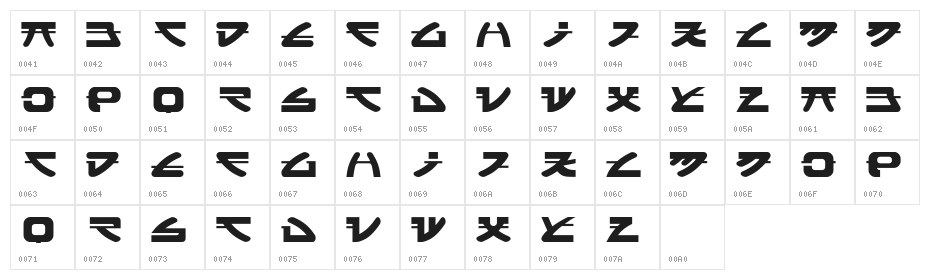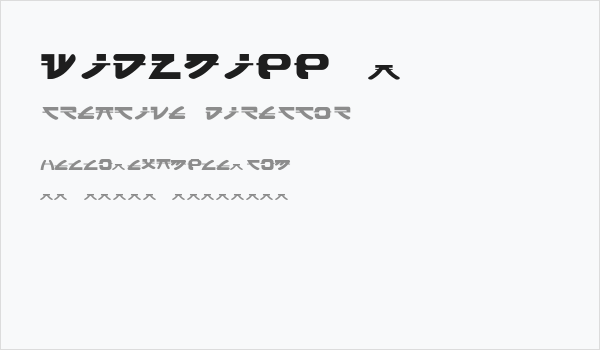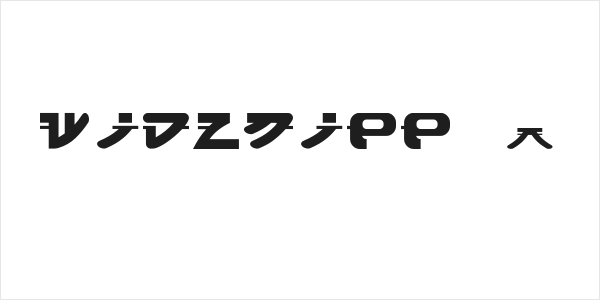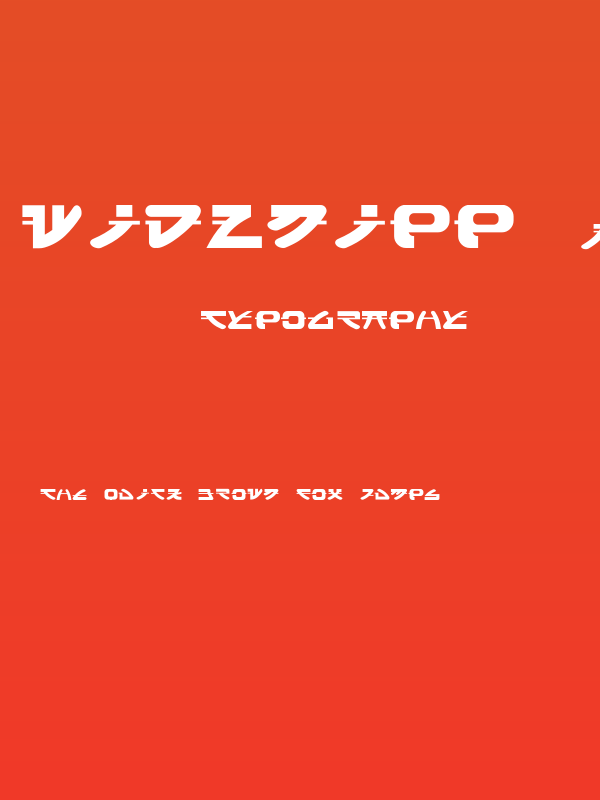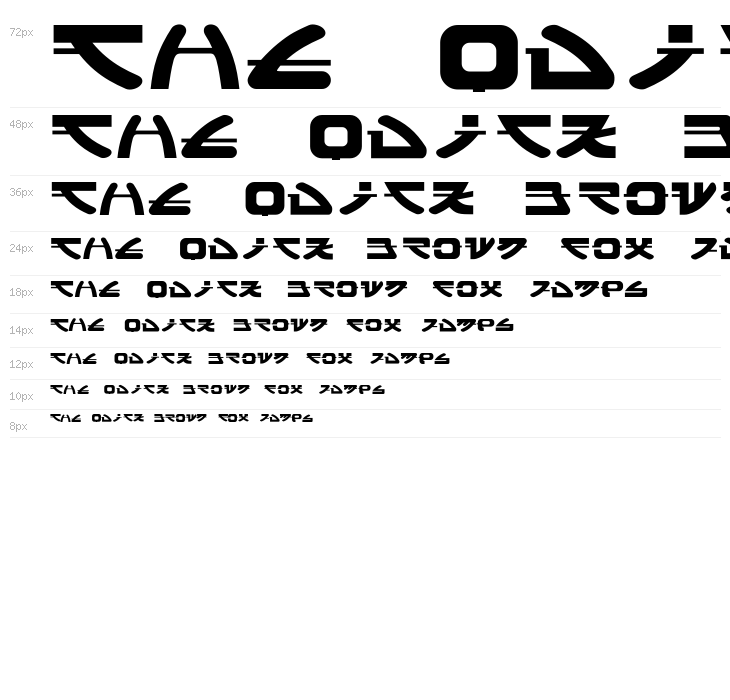
widznipp 1 Font
widznipp 1 Description
This font features a futuristic and geometric design, characterized by bold and angular shapes. The letters are constructed with sharp edges and a consistent thickness, giving it a strong and impactful appearance. The style is reminiscent of digital or sci-fi themes, with a unique aesthetic that stands out in modern design contexts. The uppercase and lowercase letters maintain a uniform style, while the numerals and special characters complement the overall design. This font is ideal for projects that require a bold and modern look, such as tech branding, video game titles, or futuristic posters.